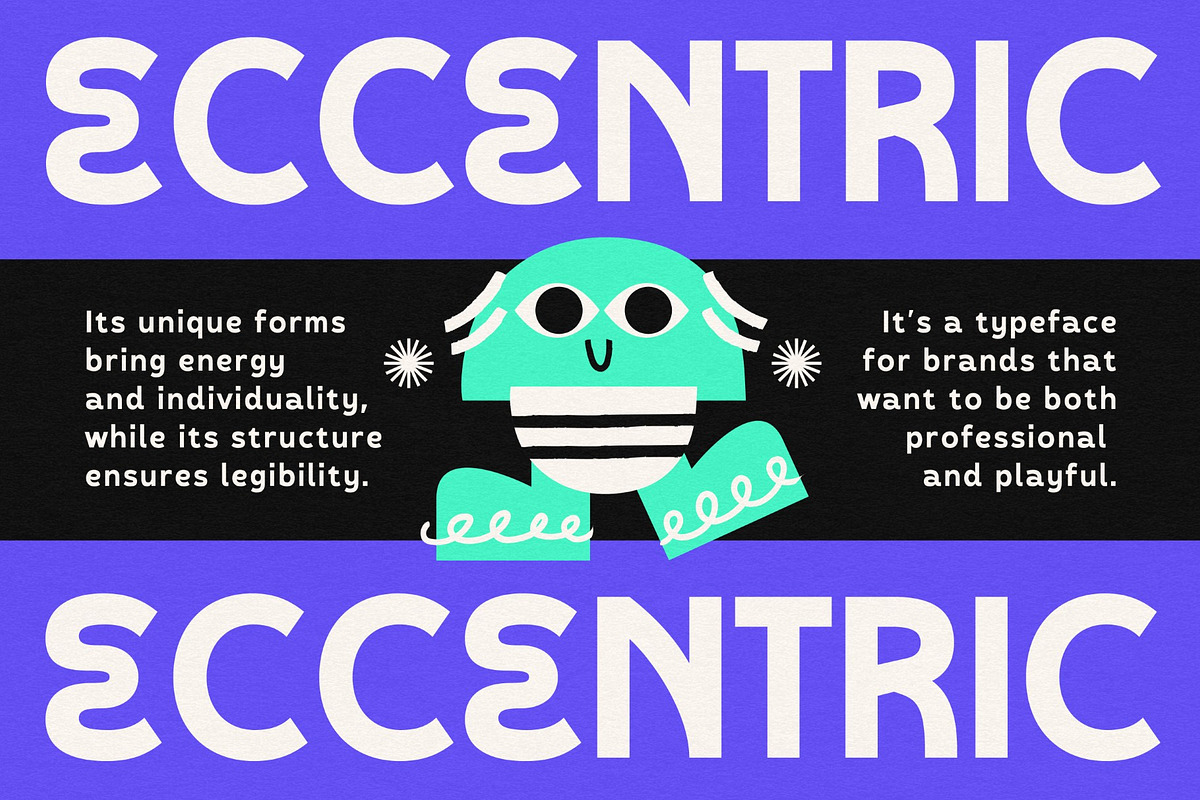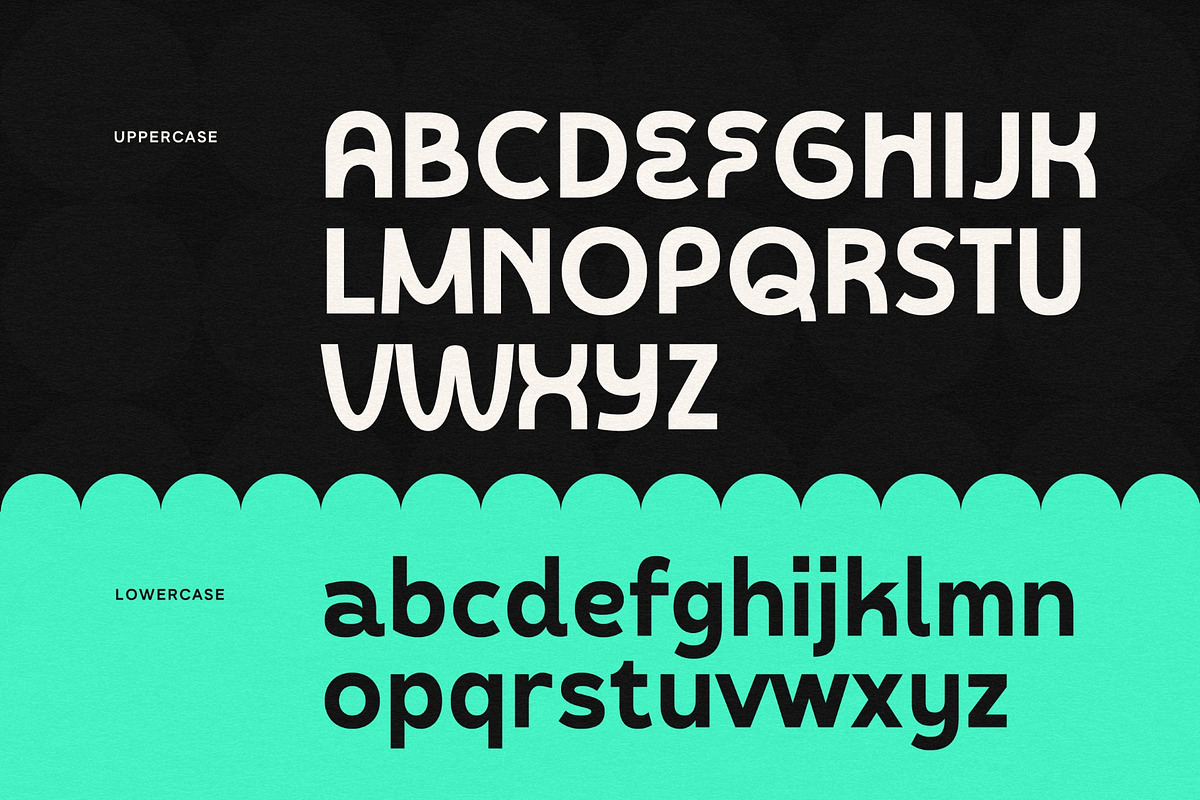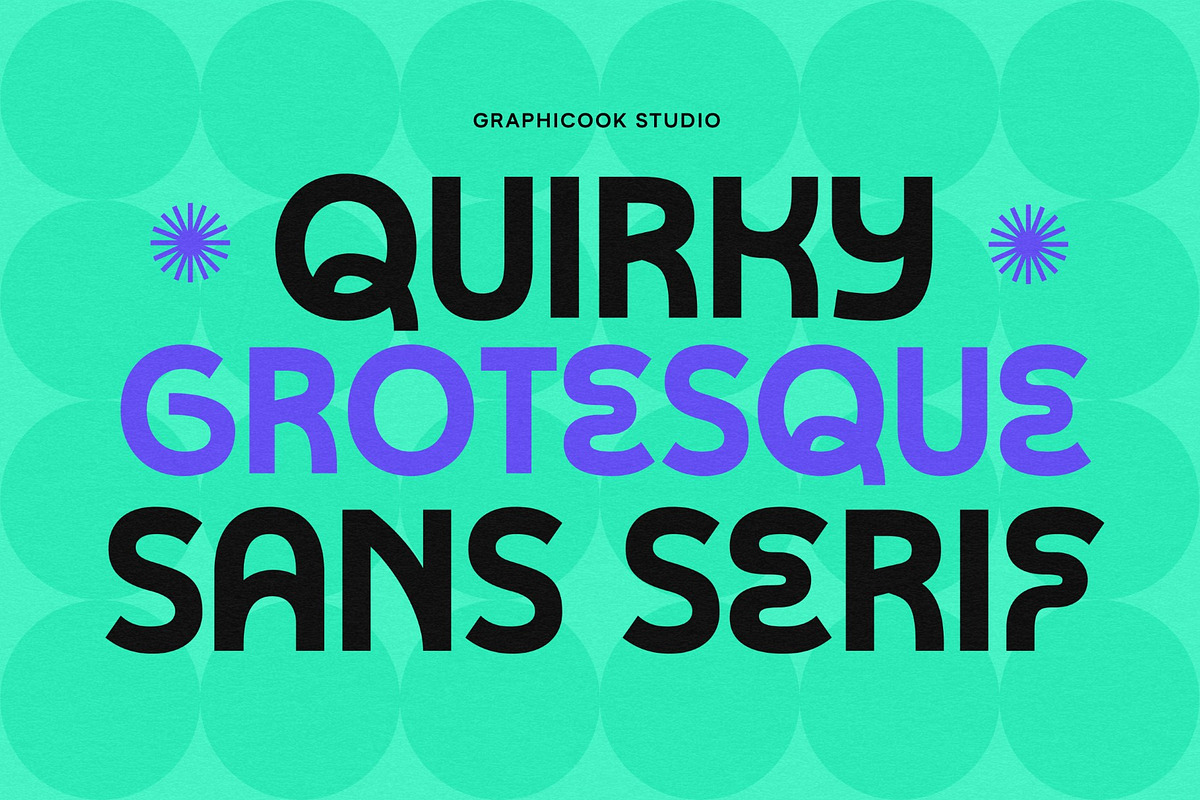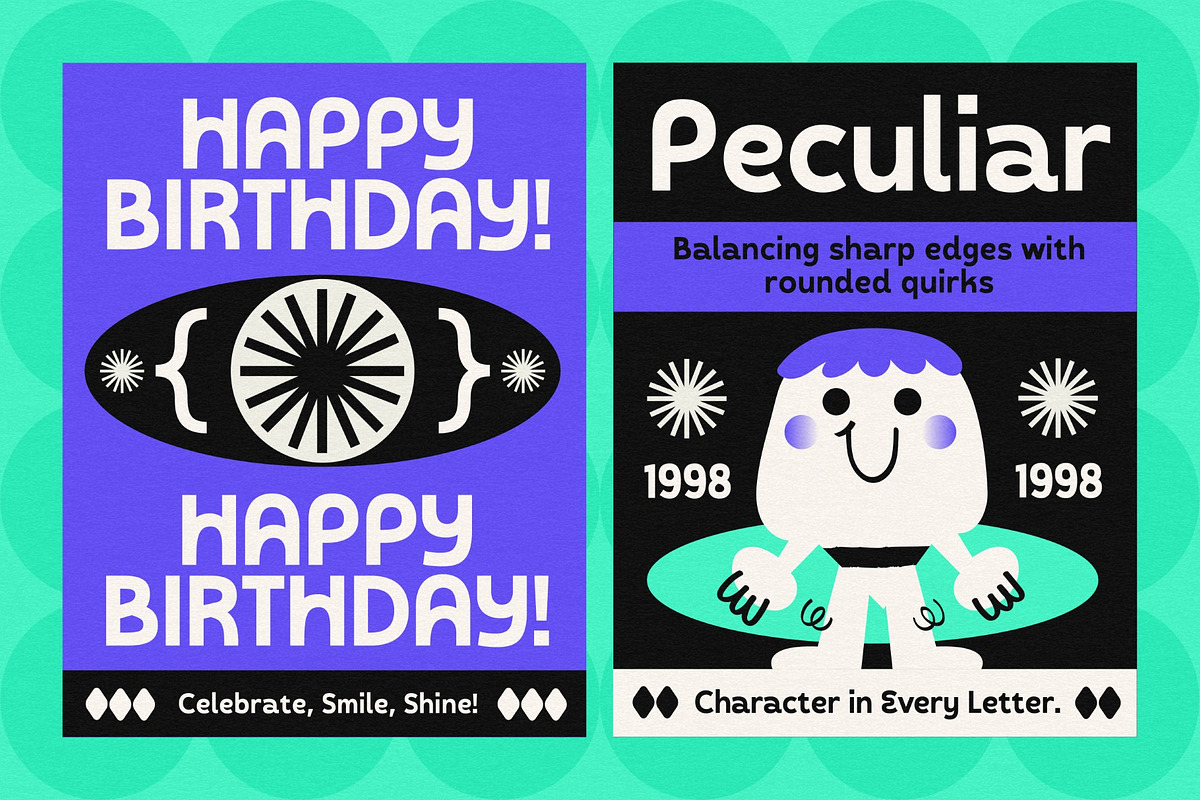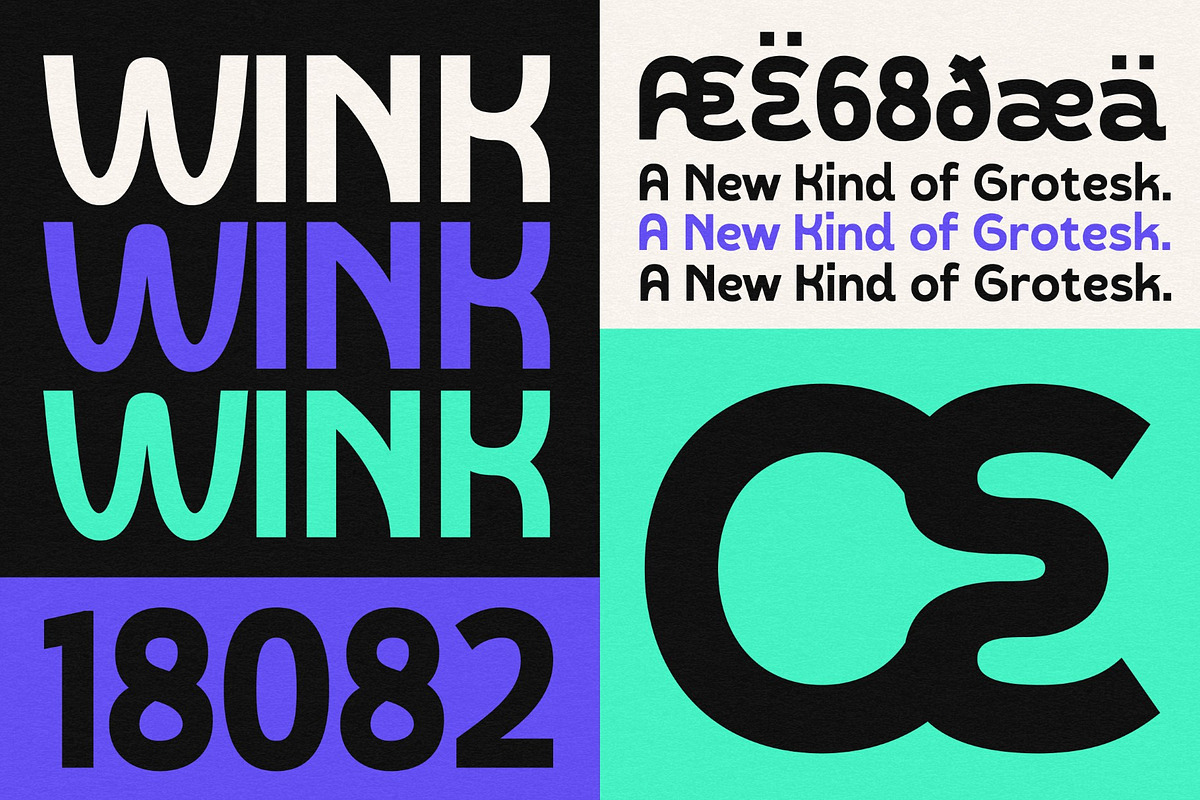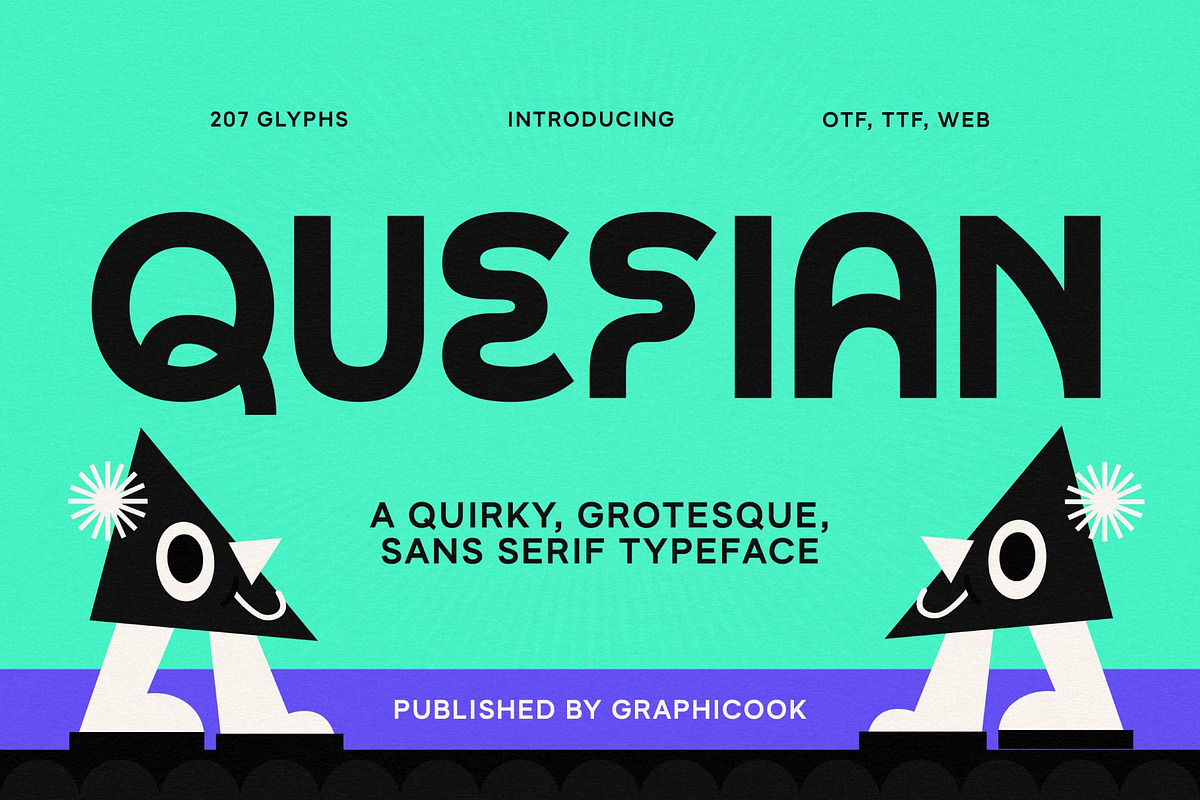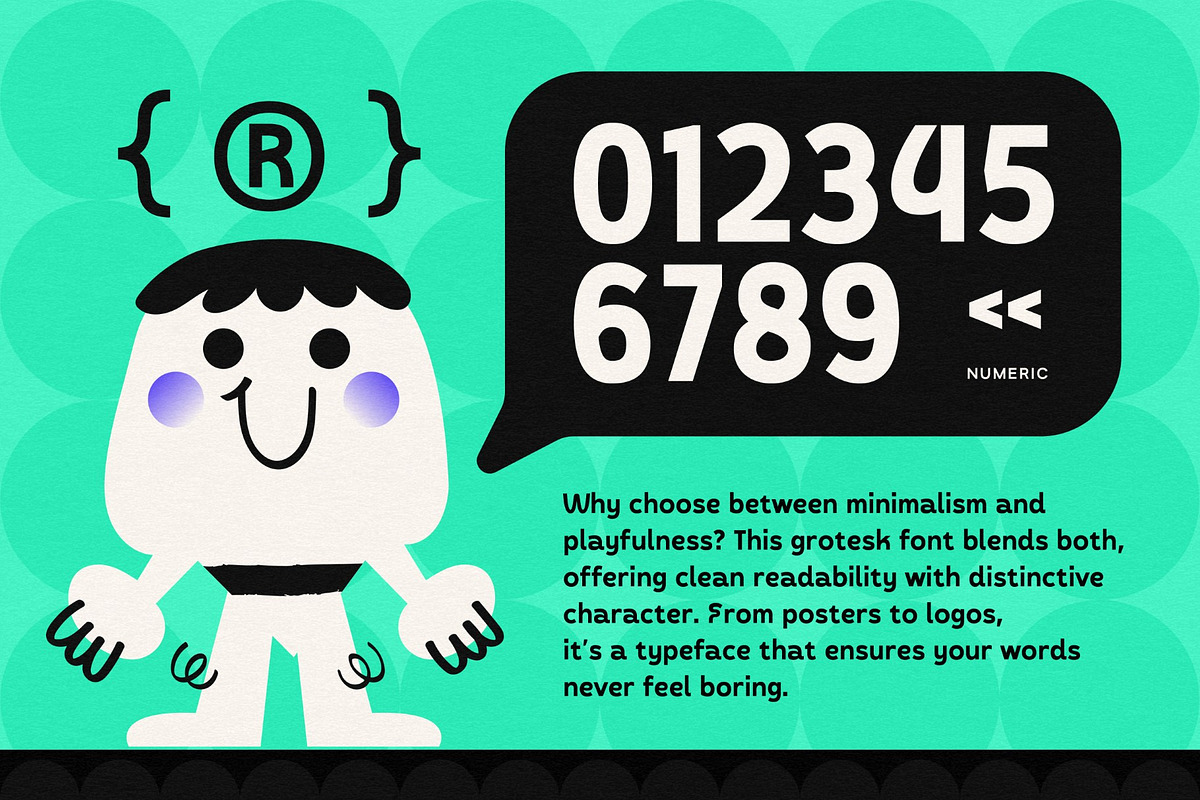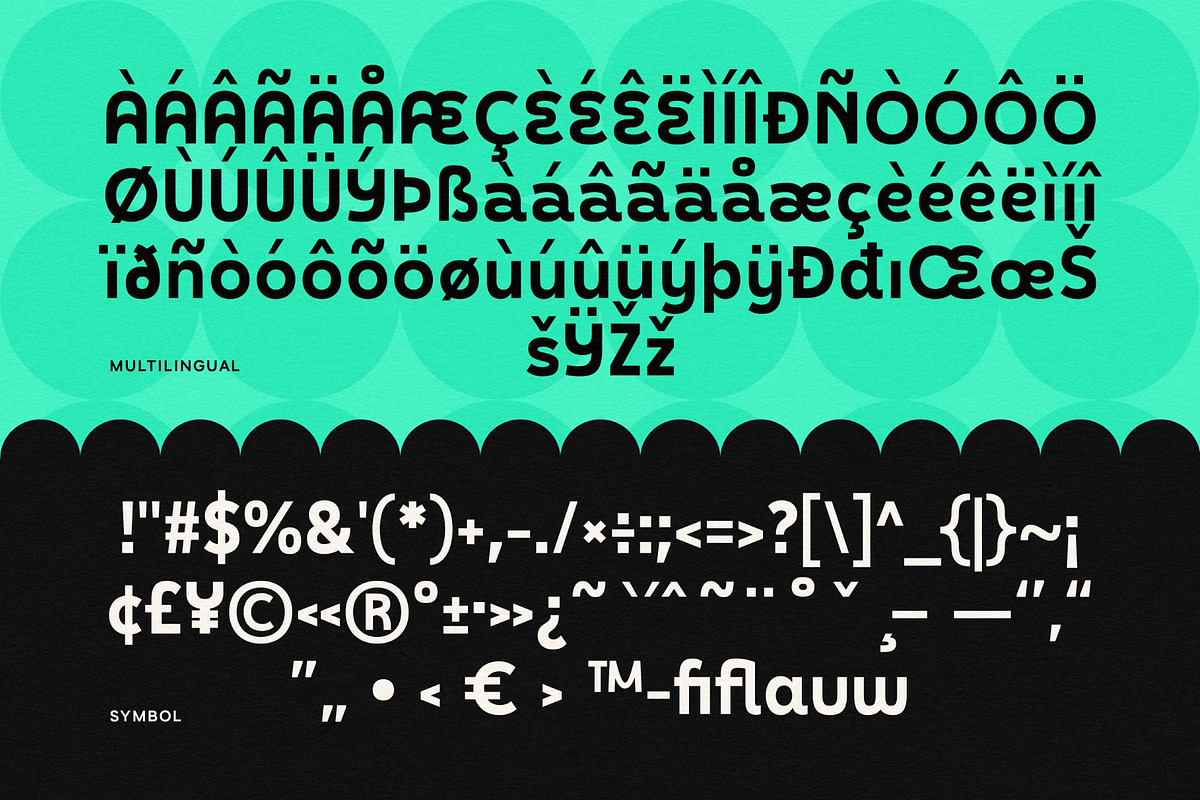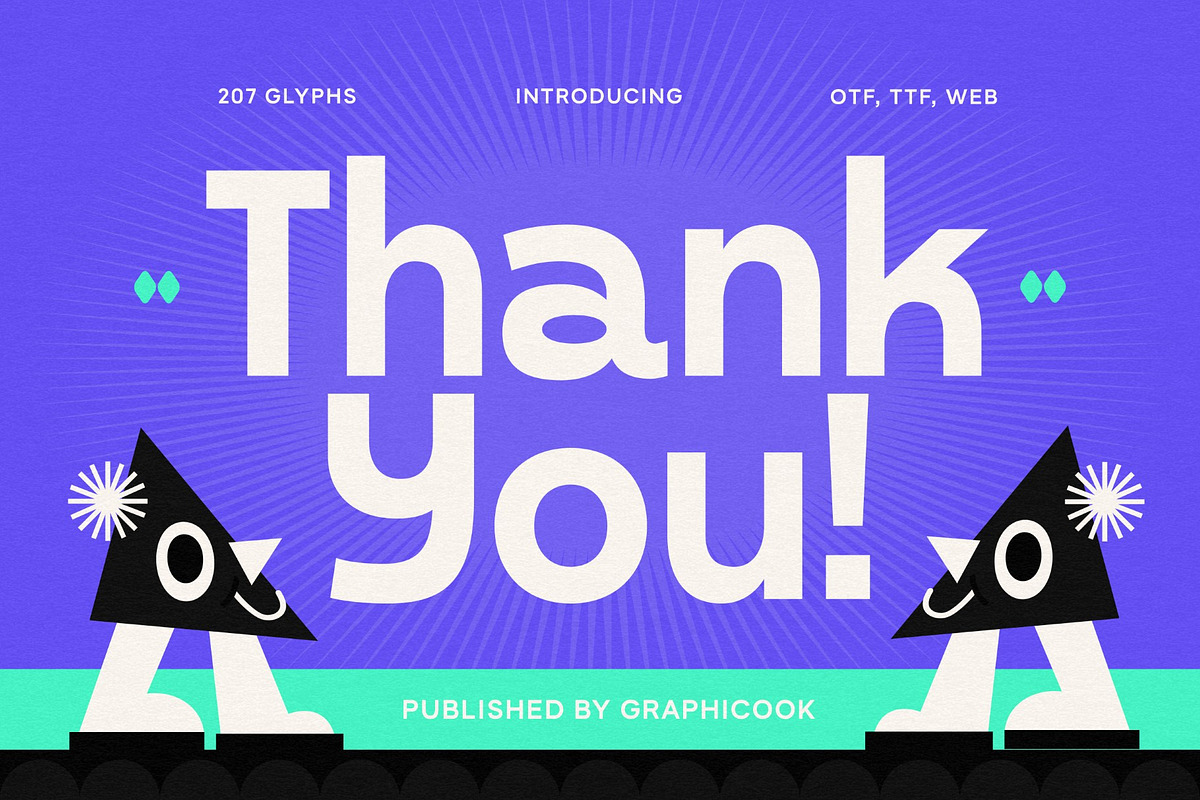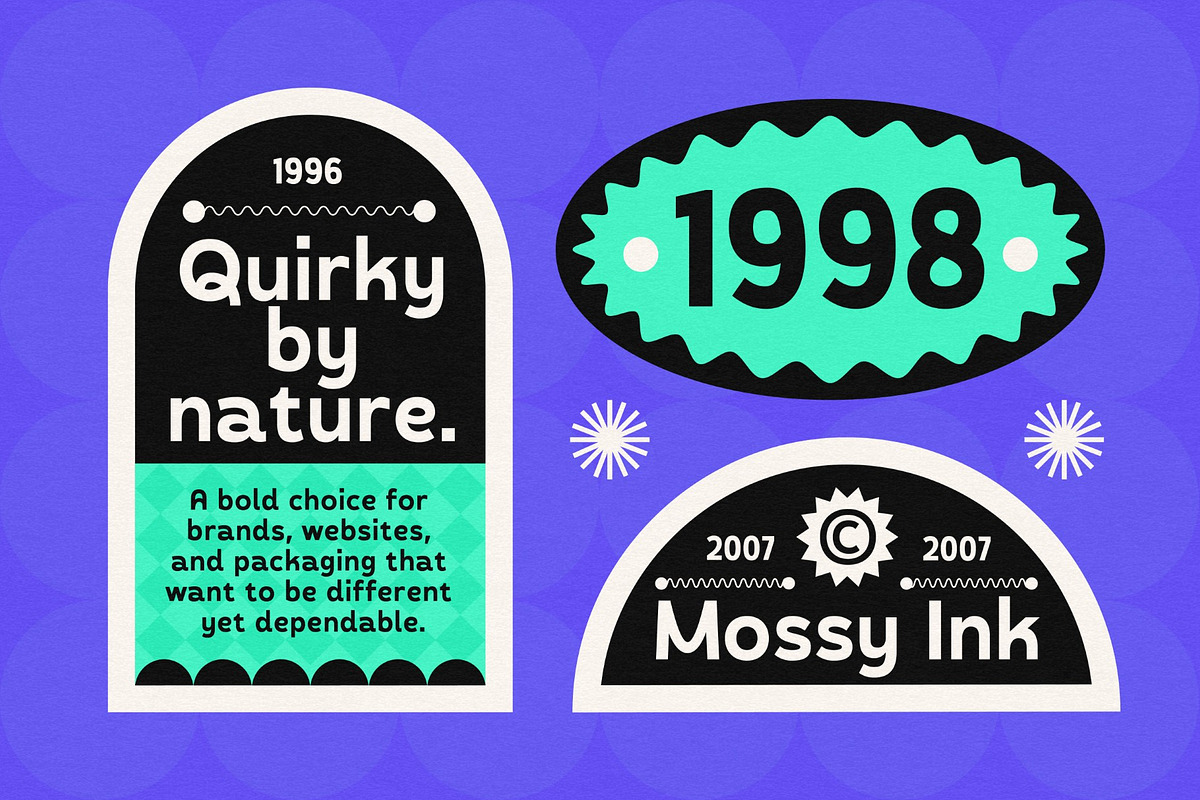
Quefian
Quefian is a grotesque sans-serif font with quirky geometric letterforms. Its balanced proportions blend playfulness with boldness, making it ideal for posters, headlines, branding, and modern design projects.
It is perfect for headlines, logotypes, magazines, packaging, quotes, movies, games, cover albums, book covers, and flyers, it's a perfect solution for creating eye-catching designs that stand out in any context.